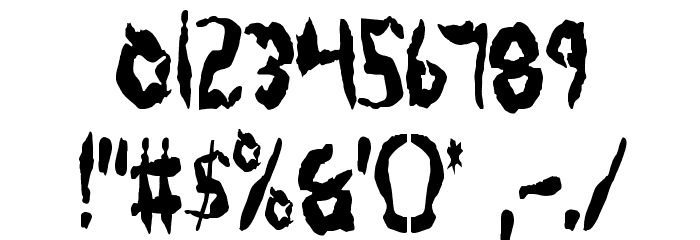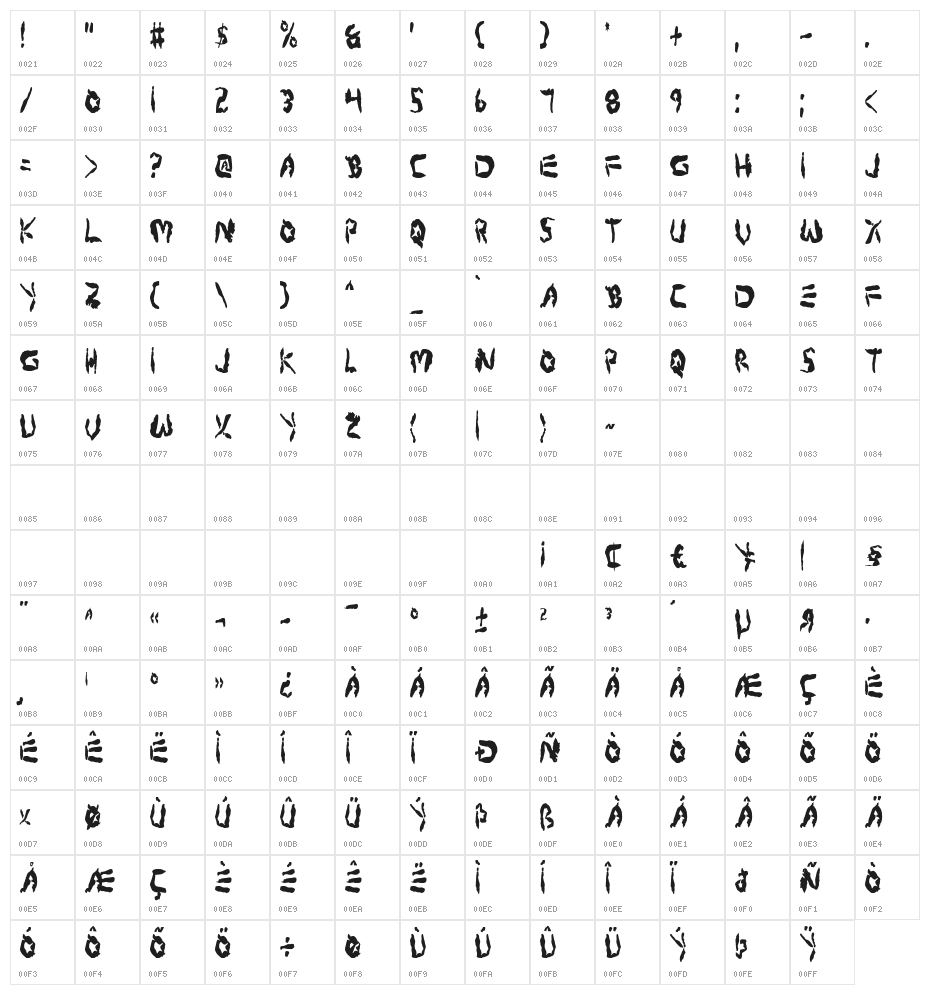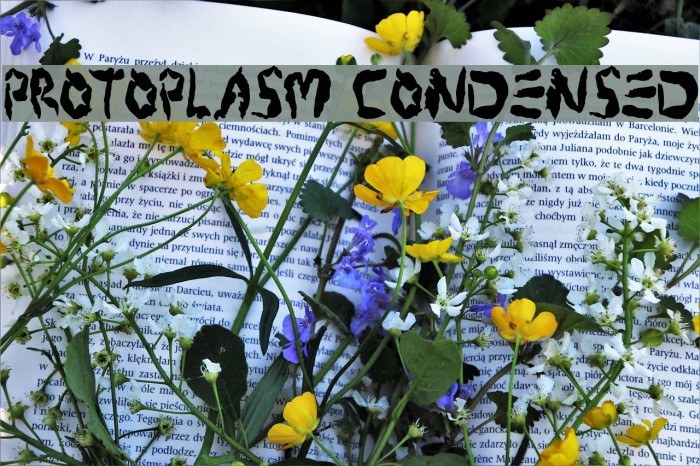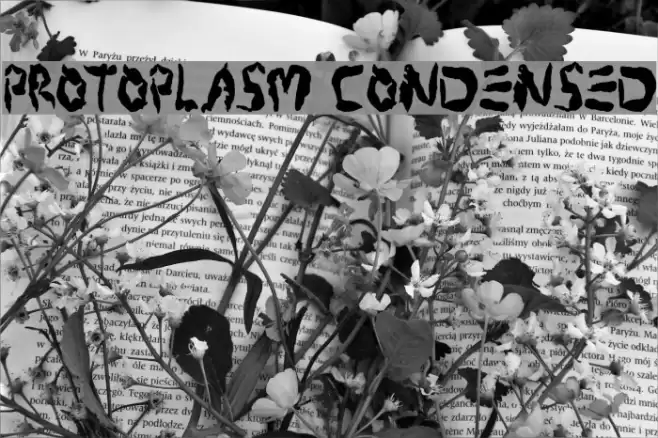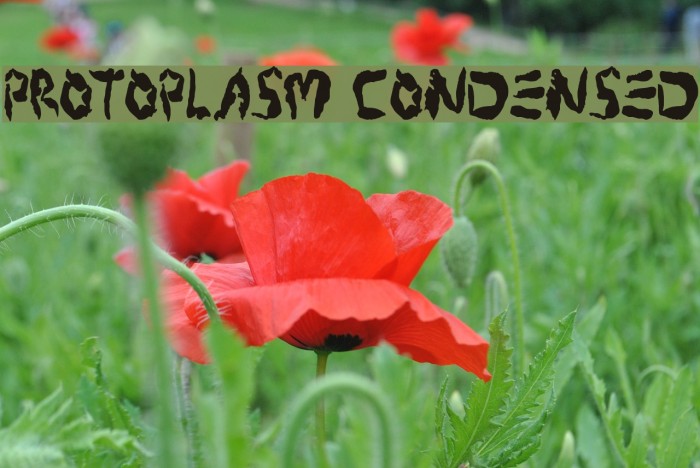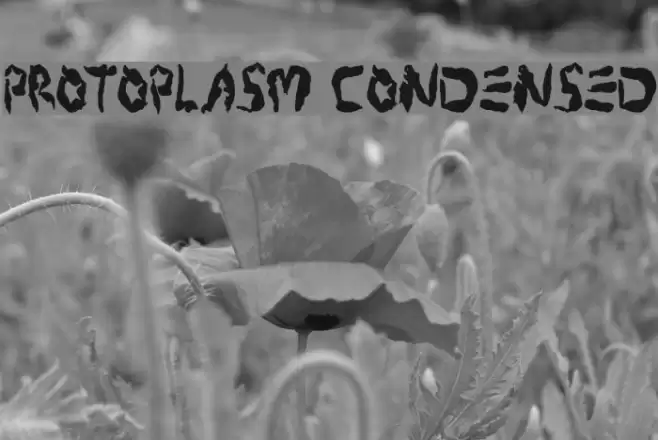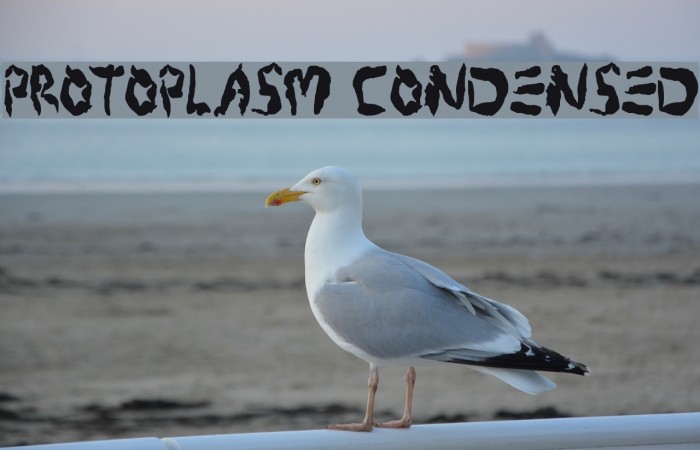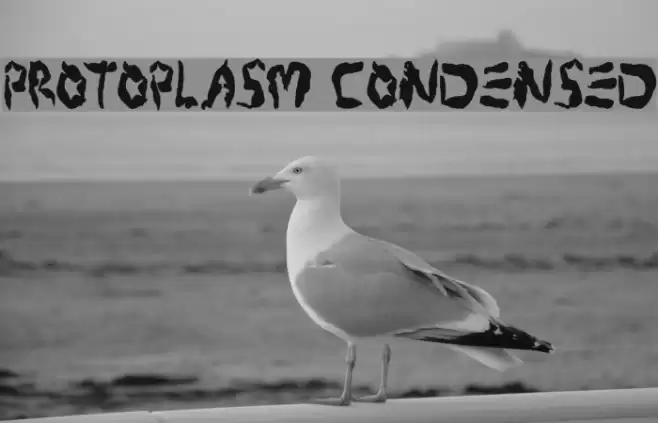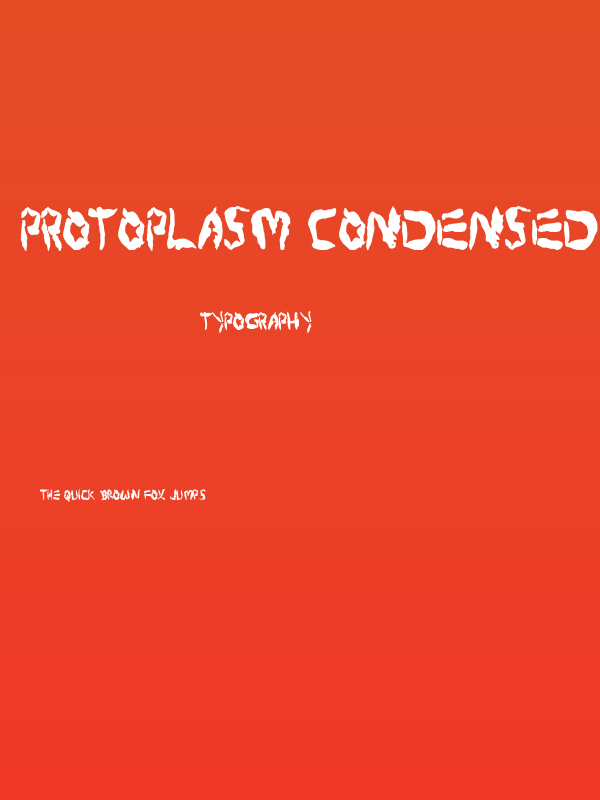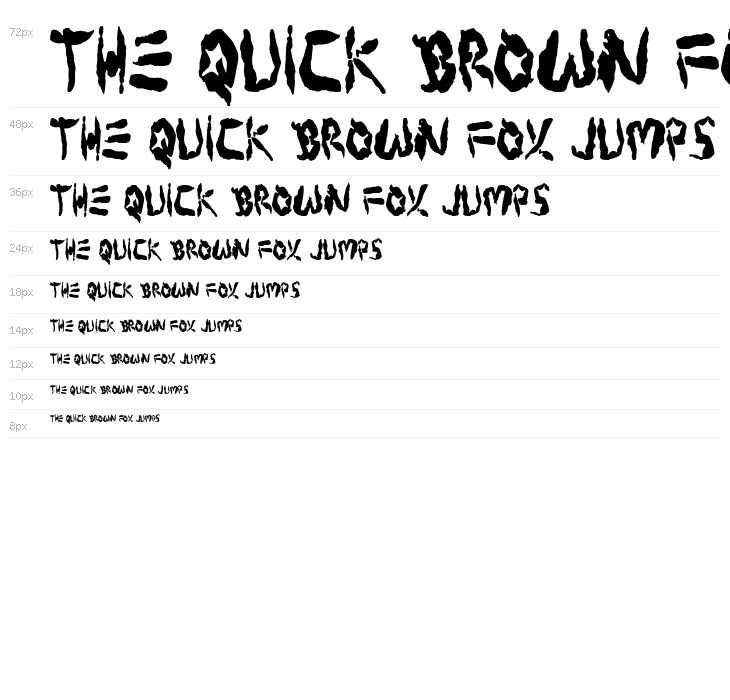
Protoplasm Condensed Font
Protoplasm Condensed Description
This font features a highly distinctive and organic design, with each character appearing as if it has been carved or eroded from a solid surface. The edges are irregular and jagged, giving it a raw and dynamic appearance. The characters are bold and condensed, with a strong presence that demands attention. This style is reminiscent of natural elements, evoking a sense of mystery and intrigue. The font's unique texture and form make it ideal for projects that require a dramatic and unconventional look.
| Proposed Projects | Ideal for horror-themed posters, album covers, or any project needing a dramatic and edgy aesthetic. |